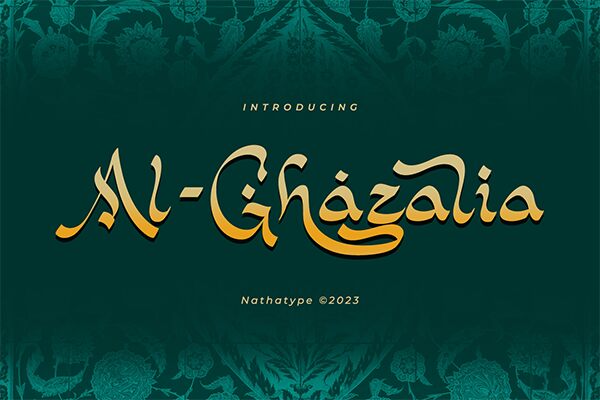
Al-Ghazalia font by Ditatype is a free decorative Arabic‑inspired display font. Built around sweeping, calligraphic strokes and teardrop terminals, it blends lyrical curves with steady, readable rhythm. The contrast feels inky and hand-drawn—thick stems taper into elegant hooks—giving headlines a sensuous, lantern‑lit warmth without losing clarity.
Using Al-Ghazalia, branding takes on a rich, story‑laden character—think restaurant logos, spice or tea packaging, festival posters, travel brochures, boutique cosmetics, and folklore book covers. This free font shines when set large with a touch of extra tracking. Pair it with a simple, neutral sans serif to let the ornate forms sing while keeping layouts grounded.